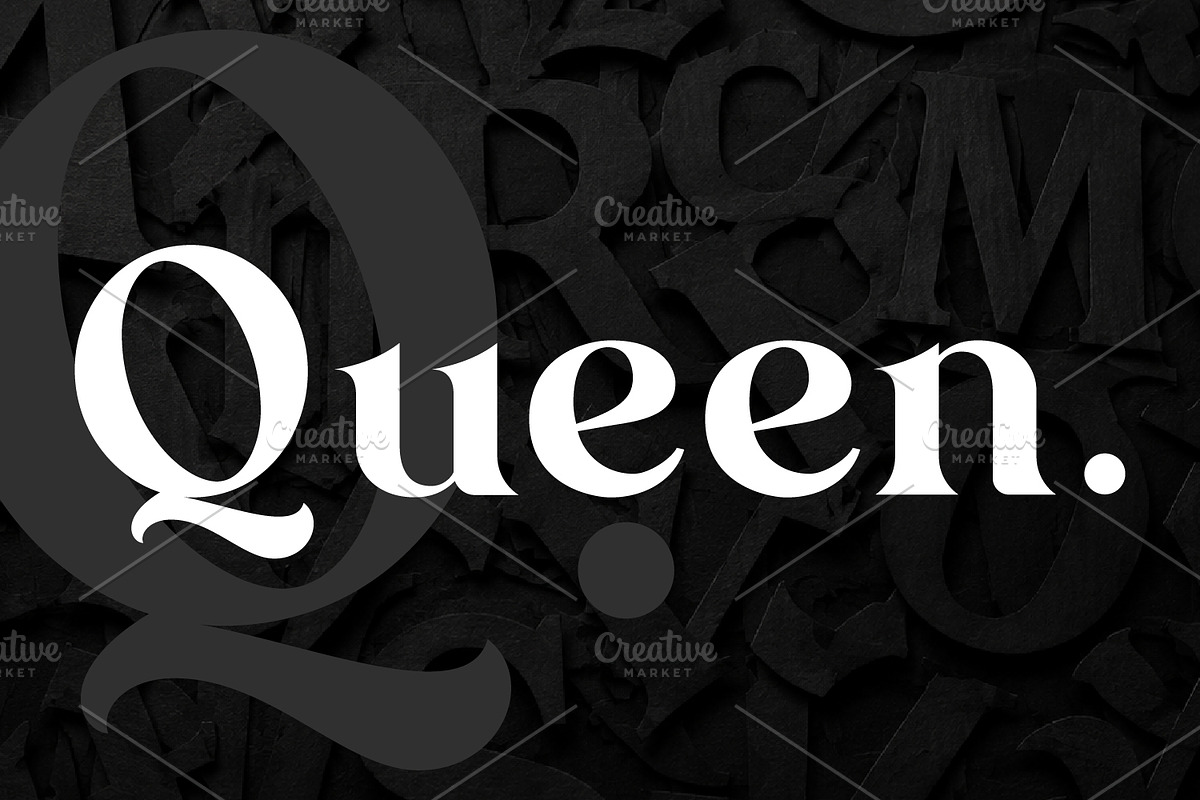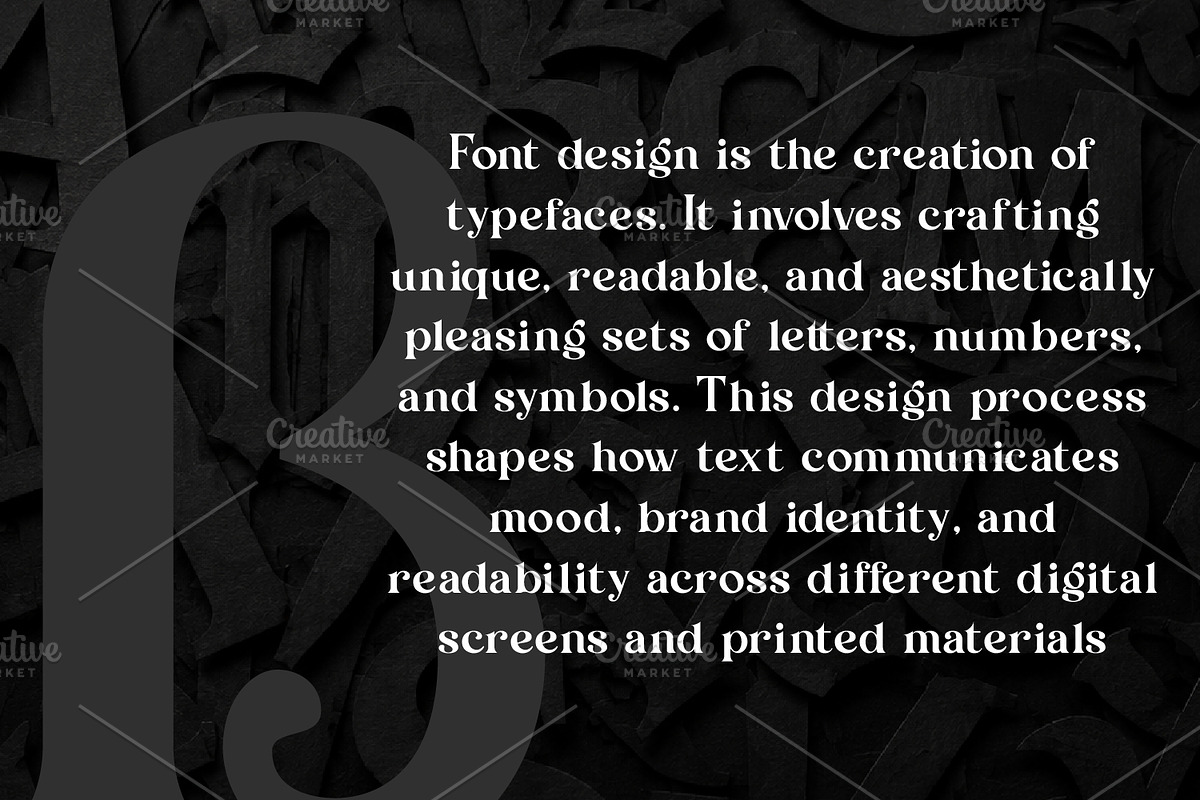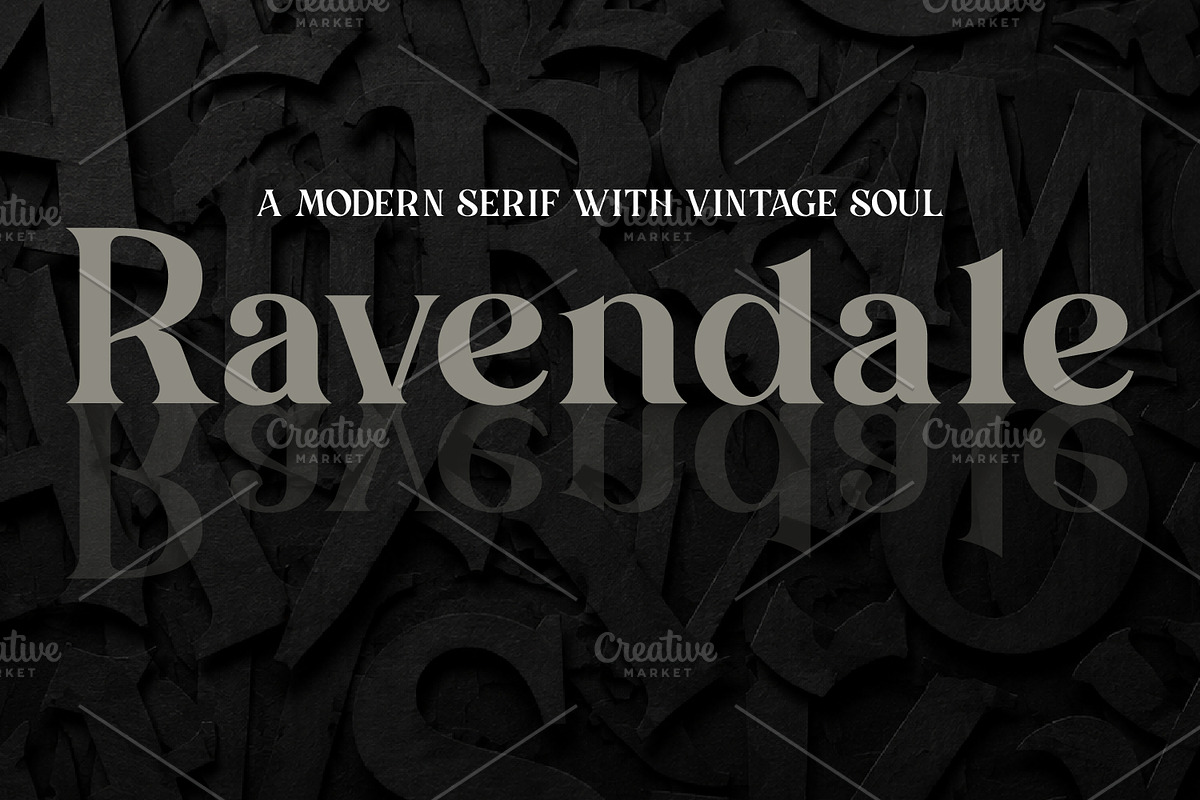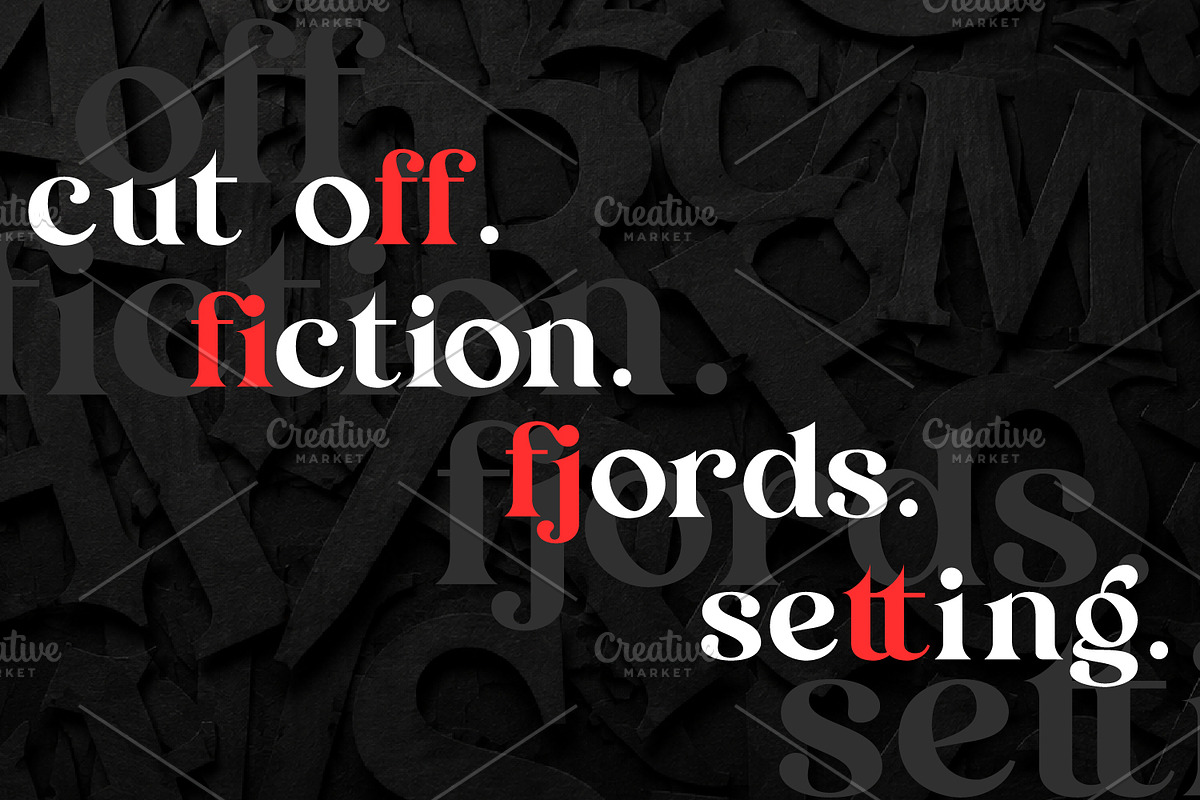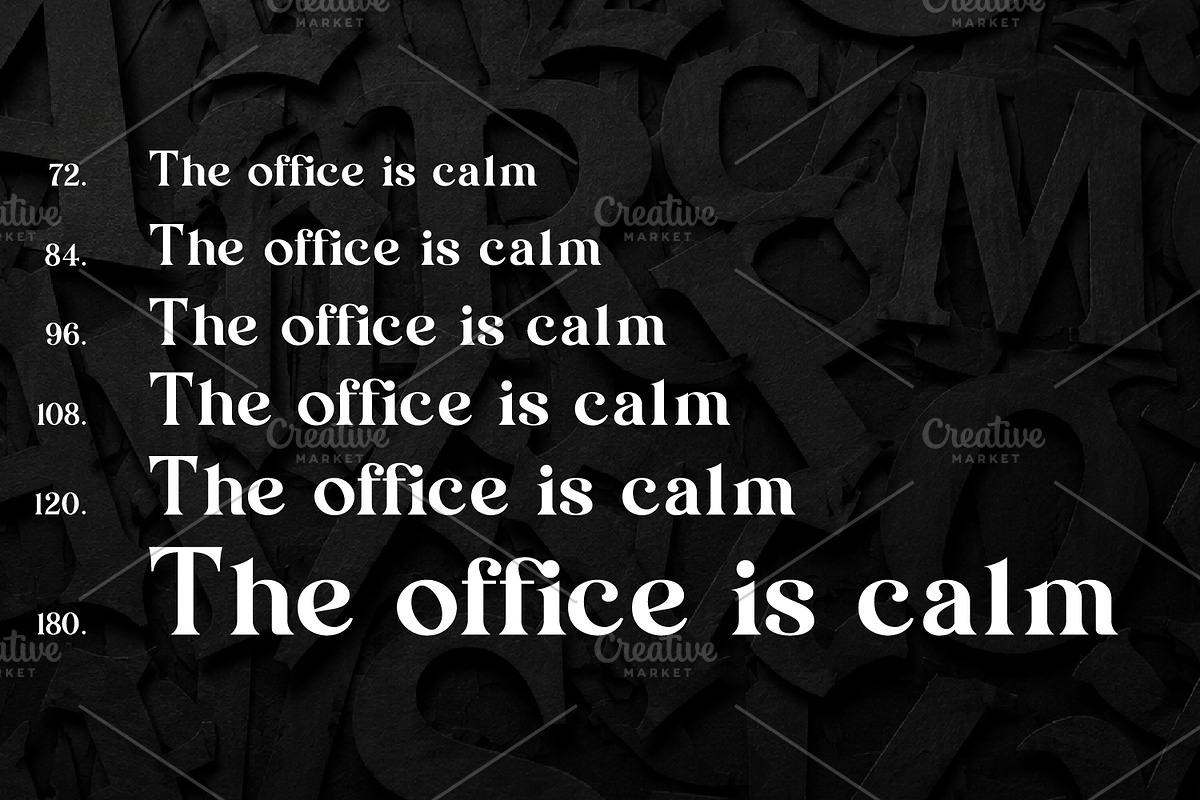
Ravendale modern serif
Ravendale is a sophisticated modern serif typeface that effortlessly blends timeless elegance with contemporary craftsmanship. Designed with subtle organic curves, expressive details, and rich OpenType features, Ravendale brings an aura of quiet luxury and high-end charm to any editorial or branding project. Whether crafted for bold headlines or set in immersive body text, Ravendale maintains flawless legibility and a sleek, graceful rhythm across print and digital media.
Ravendale is a refined, modern serif font created for designers seeking a balance between high-end aesthetic appeal and exceptional functionality. Drawing inspiration from classical typography and organic, handcrafted curves